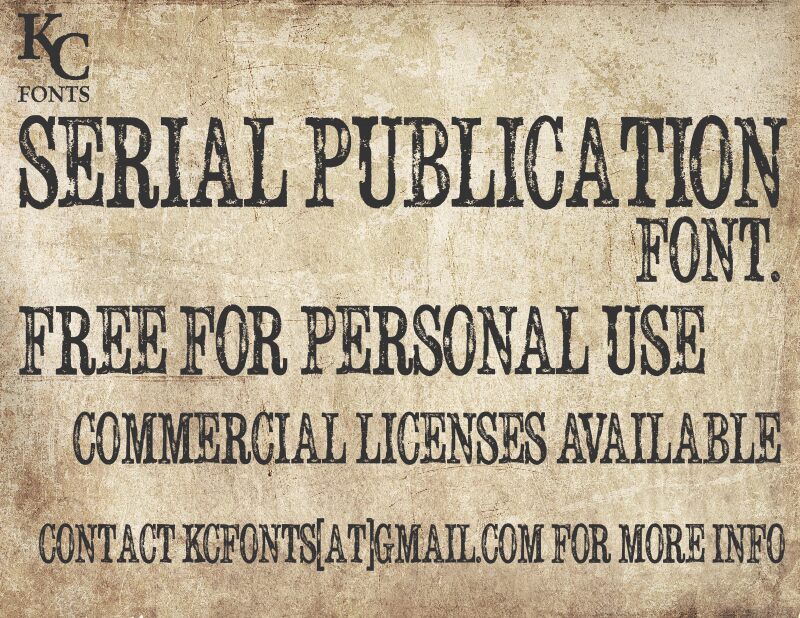
SerialPublication by Kevin Christopher is a free eroded display font with tall, tightly packed capitals and the blunt authority of old newspaper type. Its narrow letters have strong slab-like serifs and pronounced thick-thin contrast, giving the line a dense, vertical silhouette. The wear is coarse and uneven.
It is especially convincing for newspaper mastheads, where the battered surfaces suggest ink breaking across aged stock. That same rough print character suits protest posters, music packaging, and historical game graphics built around an industrial or archival setting. In those settings, the letters can become part of the printed texture itself, rather than serving as neutral titling.
Serial Publication
Kevin Christopher